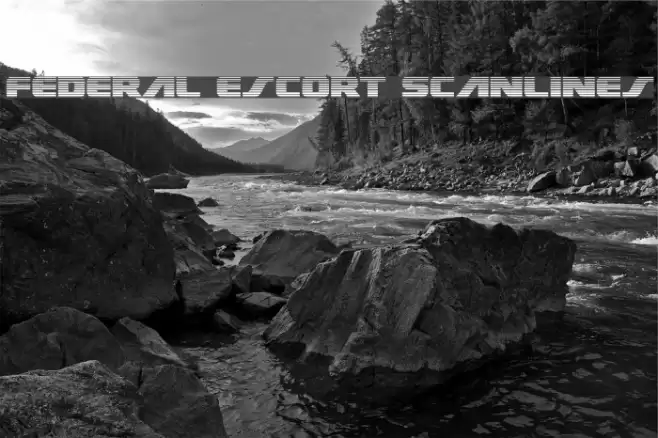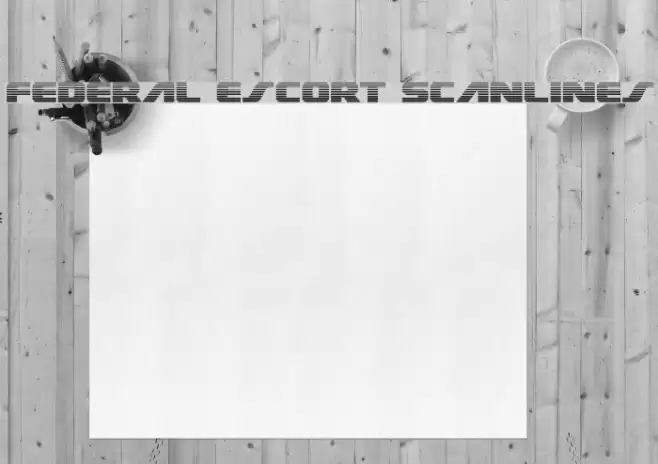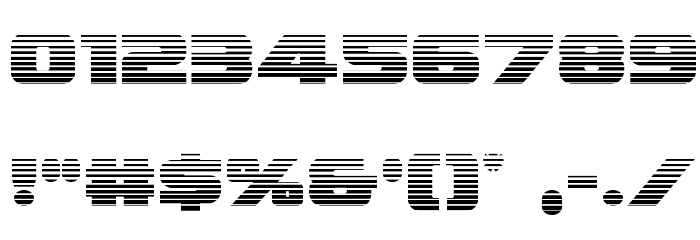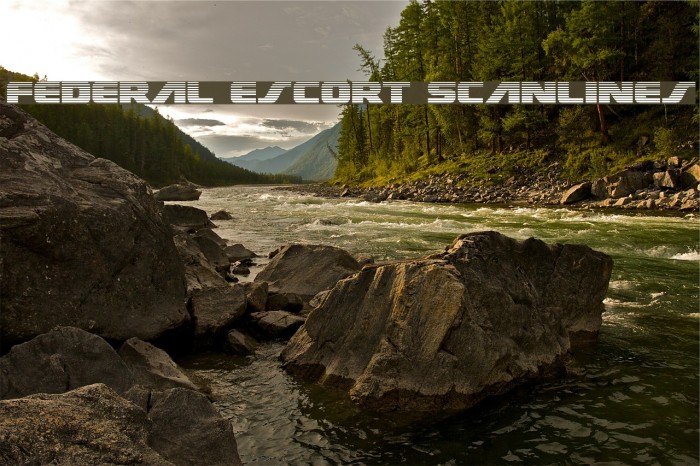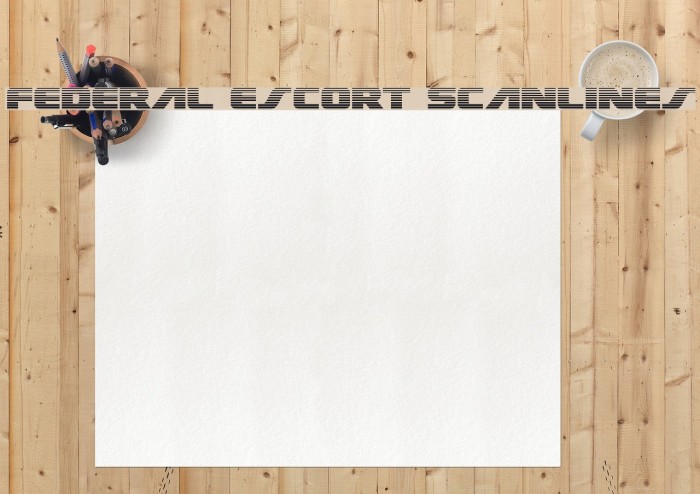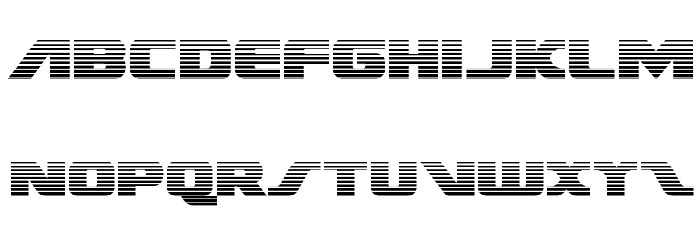
Federal Escort Scanlines Font
Federal Escort Scanlines Description
This font features a futuristic and digital aesthetic, characterized by horizontal scanline patterns running through each character. The uppercase and lowercase letters, as well as numbers and special characters, are designed with a bold and geometric structure, giving them a strong visual impact. The lines create a sense of movement and rhythm, reminiscent of old CRT screens or digital displays. This unique style makes it stand out, ideal for projects that require a modern and tech-savvy look.
A bold, futuristic font with scanline patterns and geometric shapes from Uncategorized fonts.
- Proposed Projects: Ideal for tech-themed designs, video game titles, digital art, and futuristic branding.
- Use Case: Headlines, Logos, Digital displays